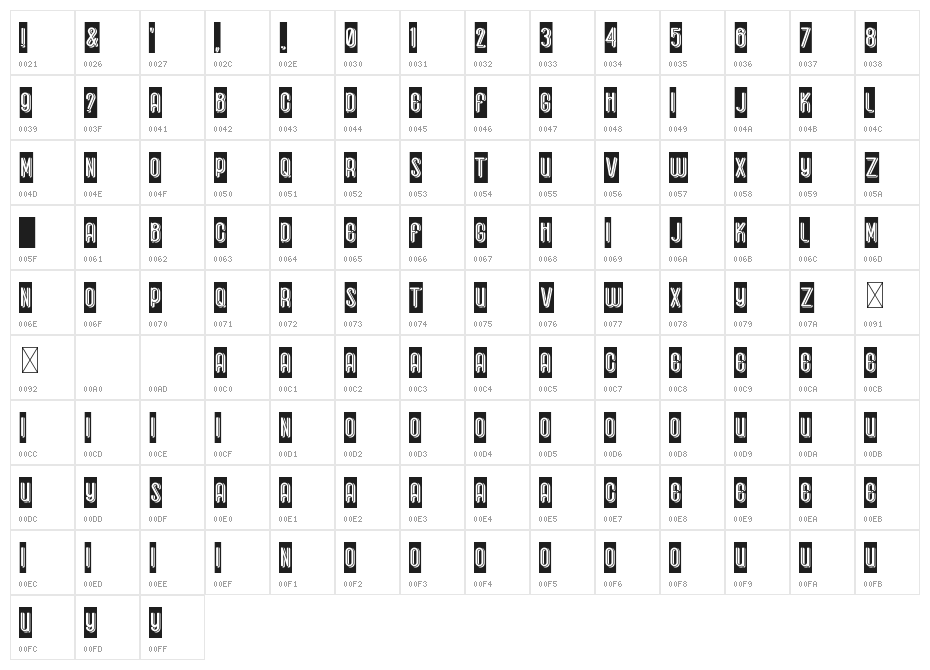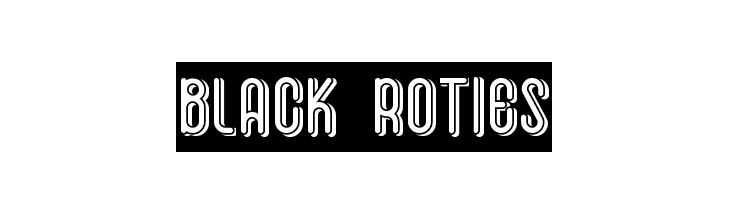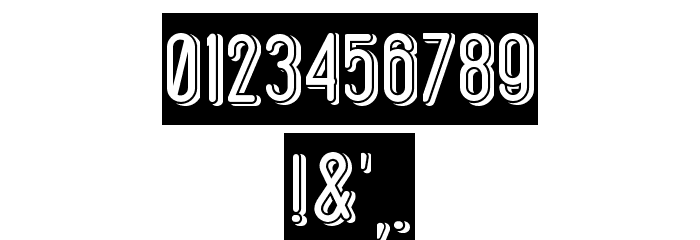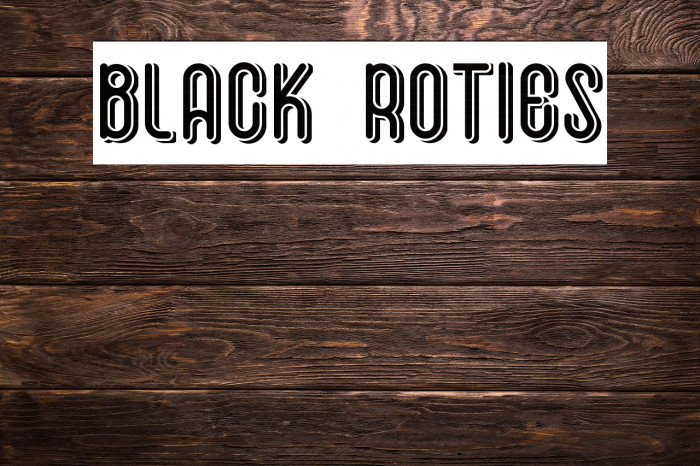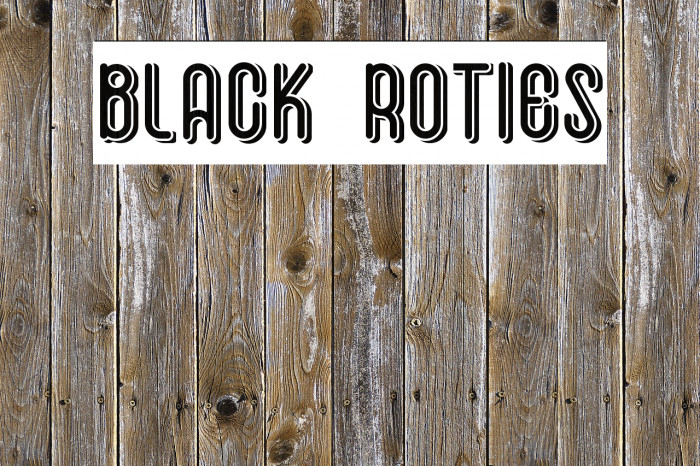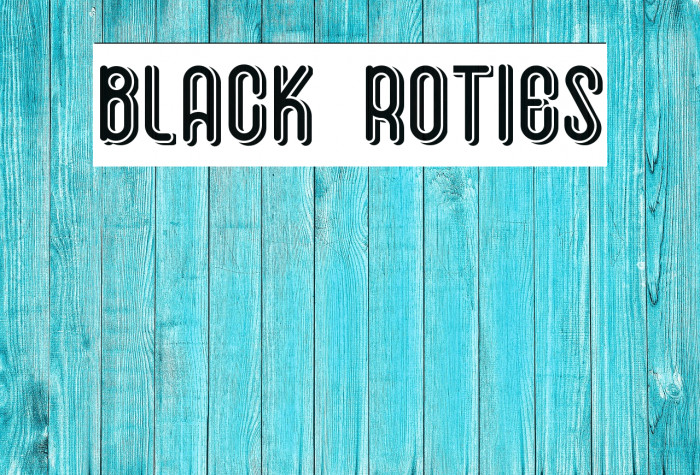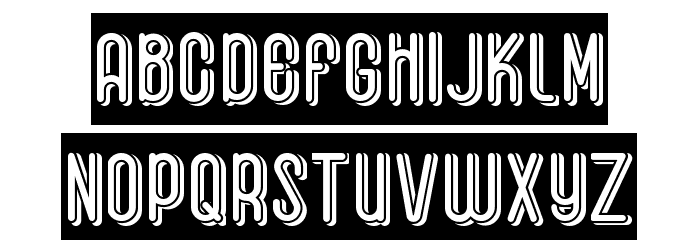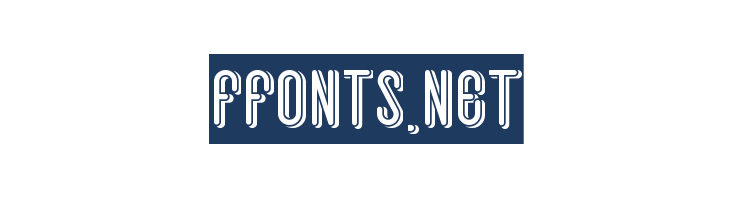
Black Roties Font
Black Roties Description
This font features a bold and decorative style with a unique outline effect that gives it a three-dimensional appearance. The characters are uppercase and lowercase letters, along with numbers and a selection of special characters. The design is striking, with each letter having a shadow-like outline that adds depth and visual interest. The font is highly stylized, making it suitable for eye-catching designs. Its boldness and decorative elements make it ideal for projects that require a strong visual impact.
| Proposed Projects | Ideal for posters, headlines, logos, and branding materials that require a strong visual presence. |